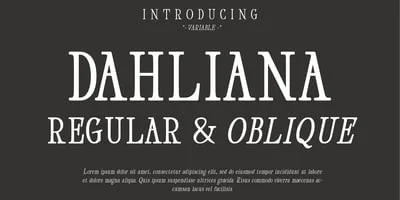
Dahliana Font
Dahliana Font is perfect for floral boutique branding, botanical garden materials, elegant wedding invitations, garden center signage, flower arrangement services, natural beauty campaigns, organic skincare packaging, greenhouse marketing, blooming lifestyle brands, and blossoming applications that celebrate the delicate beauty and natural elegance of flowering gardens and botanical artistry.
What makes Dahliana Font truly exciting is its exquisite embodiment of botanical grace and floral sophistication that captures the delicate beauty and natural elegance of dahlia flowers in their full blooming splendor. This exceptional typeface combines organic flowing curves with refined elegance, featuring petal-inspired letterforms and garden-fresh character that convey both natural beauty and cultivated sophistication. The font's floral personality and botanical authenticity make it perfect for brands seeking to communicate natural elegance, garden beauty, and the transformative power of connecting with nature's most beautiful flowering expressions and botanical artistry.
The Dahliana Font family includes multiple weights and styles: Light, Regular, Medium, Bold, and Blooming variations designed for maximum floral impact. Each family member maintains the distinctive botanical character while offering flexibility for diverse garden applications and natural branding systems. The comprehensive character set supports botanical typography needs and floral design elements, making it suitable for international garden communications.
When you choose Dahliana Font, you're selecting a typography garden that delivers authentic botanical credibility and floral excellence to every natural project. This elegant typeface excels in applications where natural beauty and botanical sophistication are paramount, delivering exceptional floral appeal while maintaining garden authenticity. Whether you're designing botanical brands, garden campaigns, floral materials, or natural marketing content, this font provides the botanical sophistication and floral elegance that resonates with nature lovers who appreciate garden beauty, floral artistry, and the peaceful connection with the natural world through the cultivation and appreciation of beautiful flowering plants and botanical gardens.